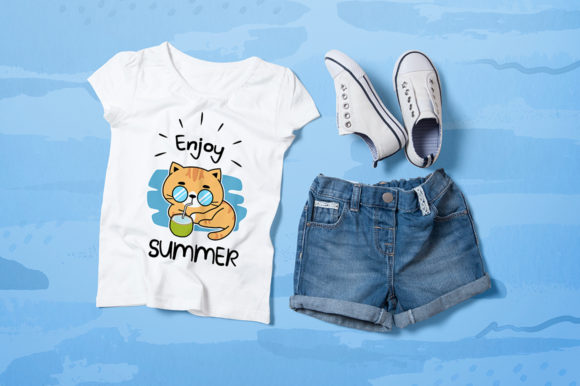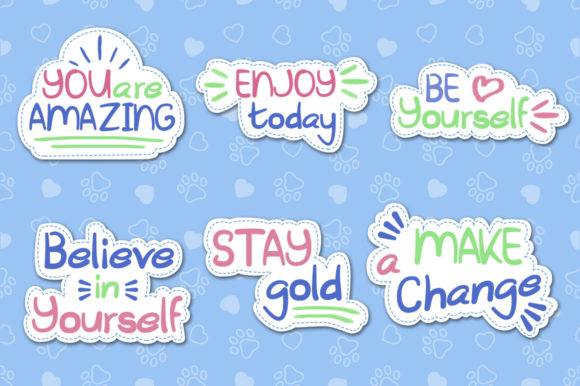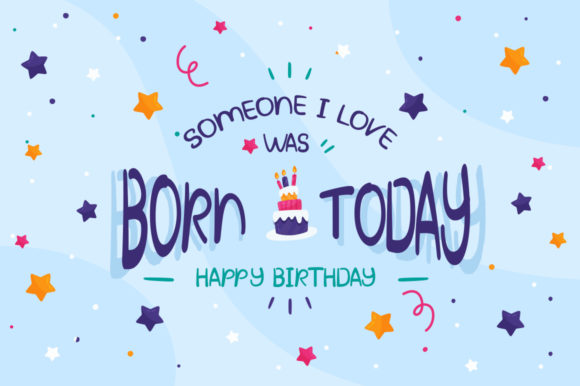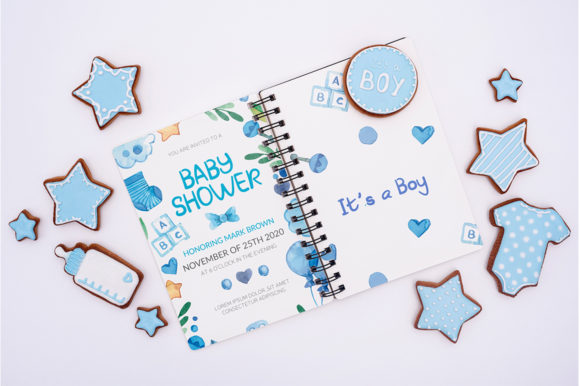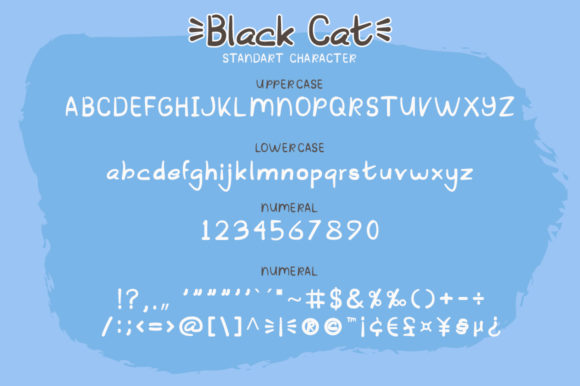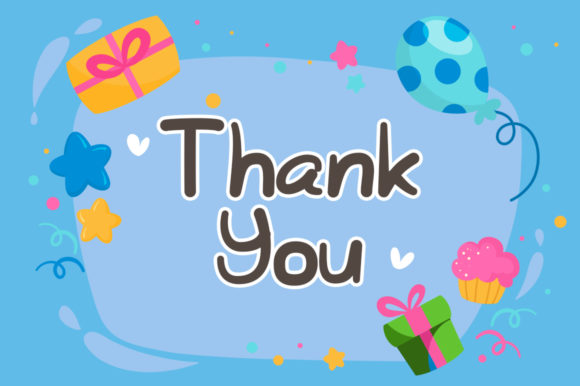
Black Cat Font
About Black Cat Font
Black Cat is a sweet and friendly handwritten font. Its natural and unique style makes it incredibly fitting to a large pool of designs. The only limit is your imagination!